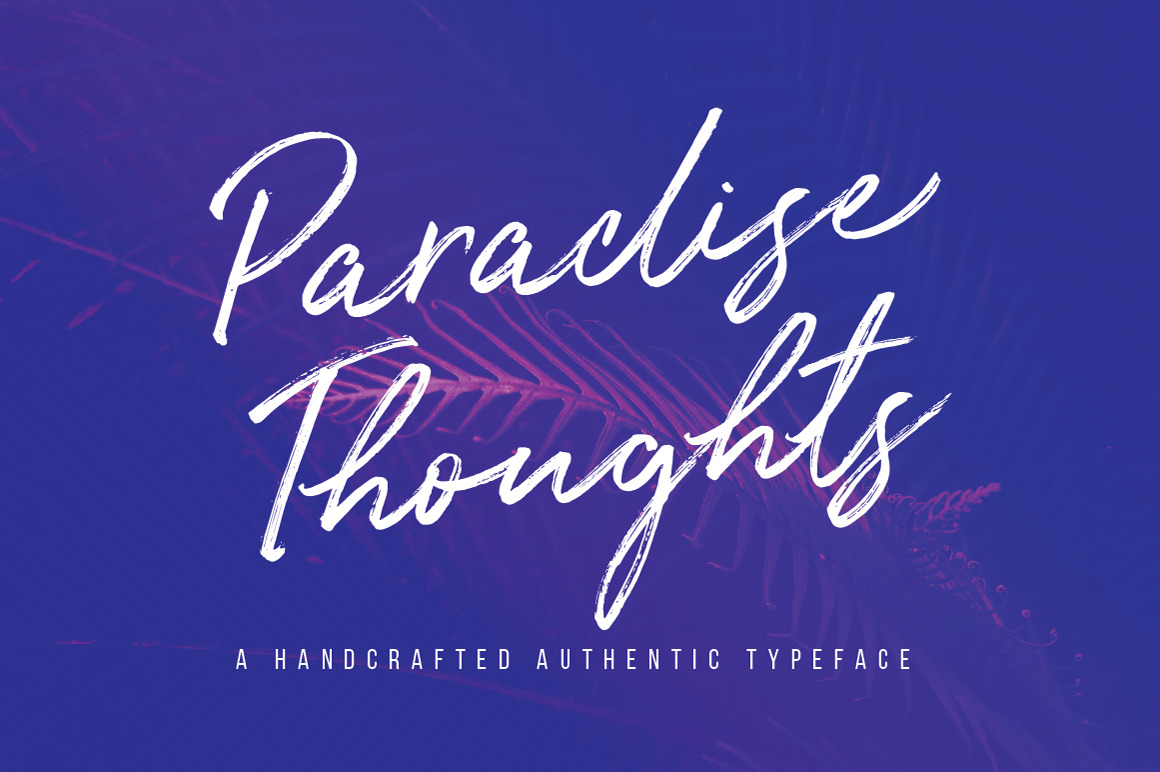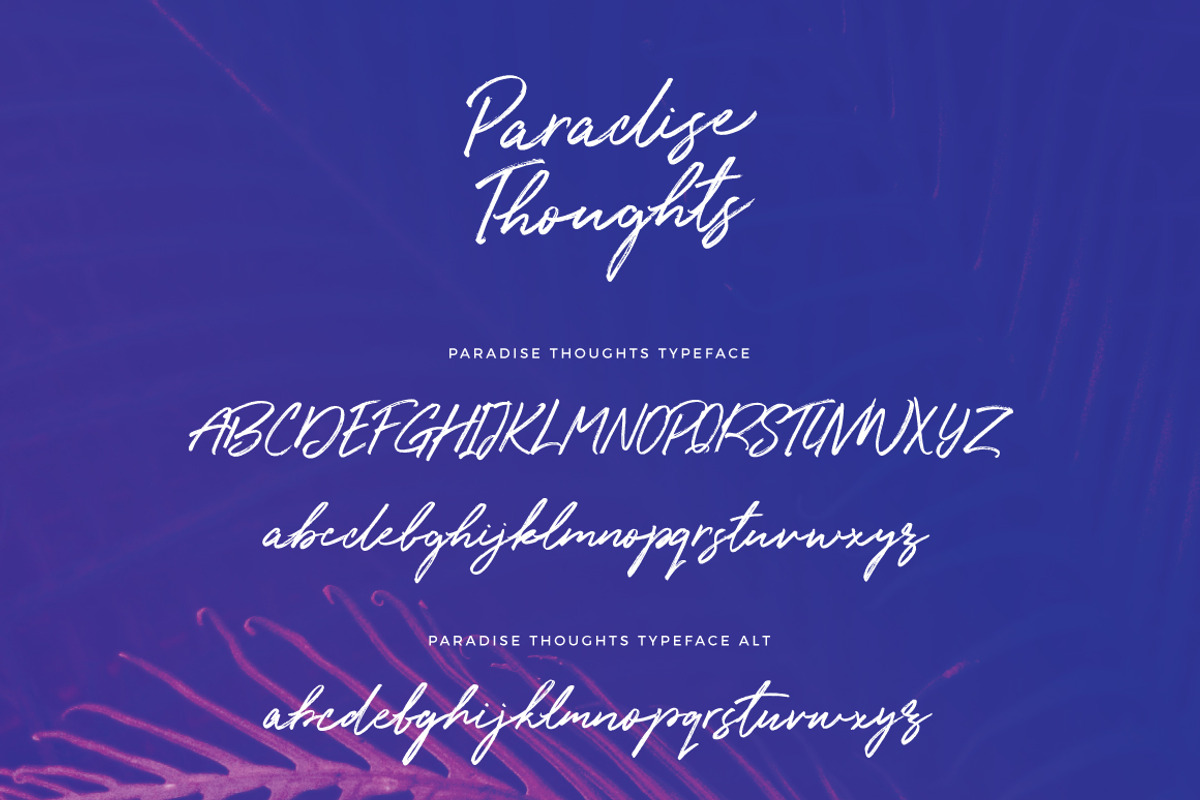
Paradise Thoughts Typeface
Paradise Thoughts is a hand made font crafted with love. It's authentically hand lettered in my cozy home studio! The pack includes alternates for lowercase characters to make it look like freshly hand written. Designed to work perfectly in multiple designs like wedding invitations, website logos, Instagram posts and many many more.
PARADISE THOUGHTS TYPEFACE - Upper and lowercase characters, numerals, punctuations and a wide language support. Alternates for lowercase characters. Including both, OTF and TTF filetypes.
PARADISE THOUGHTS TYPEFACE ALT - Alternates for lowercase characters. Including both, OTF and TTF filetypes.